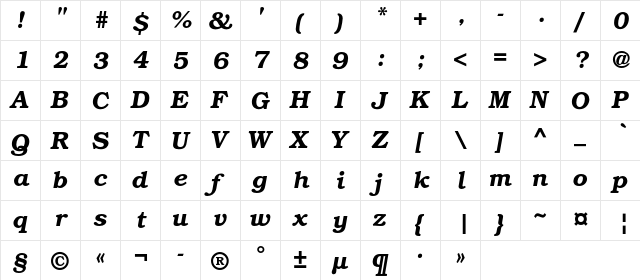
BookmanC Bold Italic Font Preview
Design Context for BookmanC Typeface
BookmanC takes a measured approach to typography — its balanced proportions and neutral character make it a reliable workhorse for both digital and print work. The dynamic lean of this cut emphasises speed and emphasis in any layout. The heavy weight commands attention and anchors typographic hierarchies.
Pro Tip: Try BookmanC for annotation and caption copy alongside an upright companion — the contrast in angle creates a dynamic but ordered typographic system.